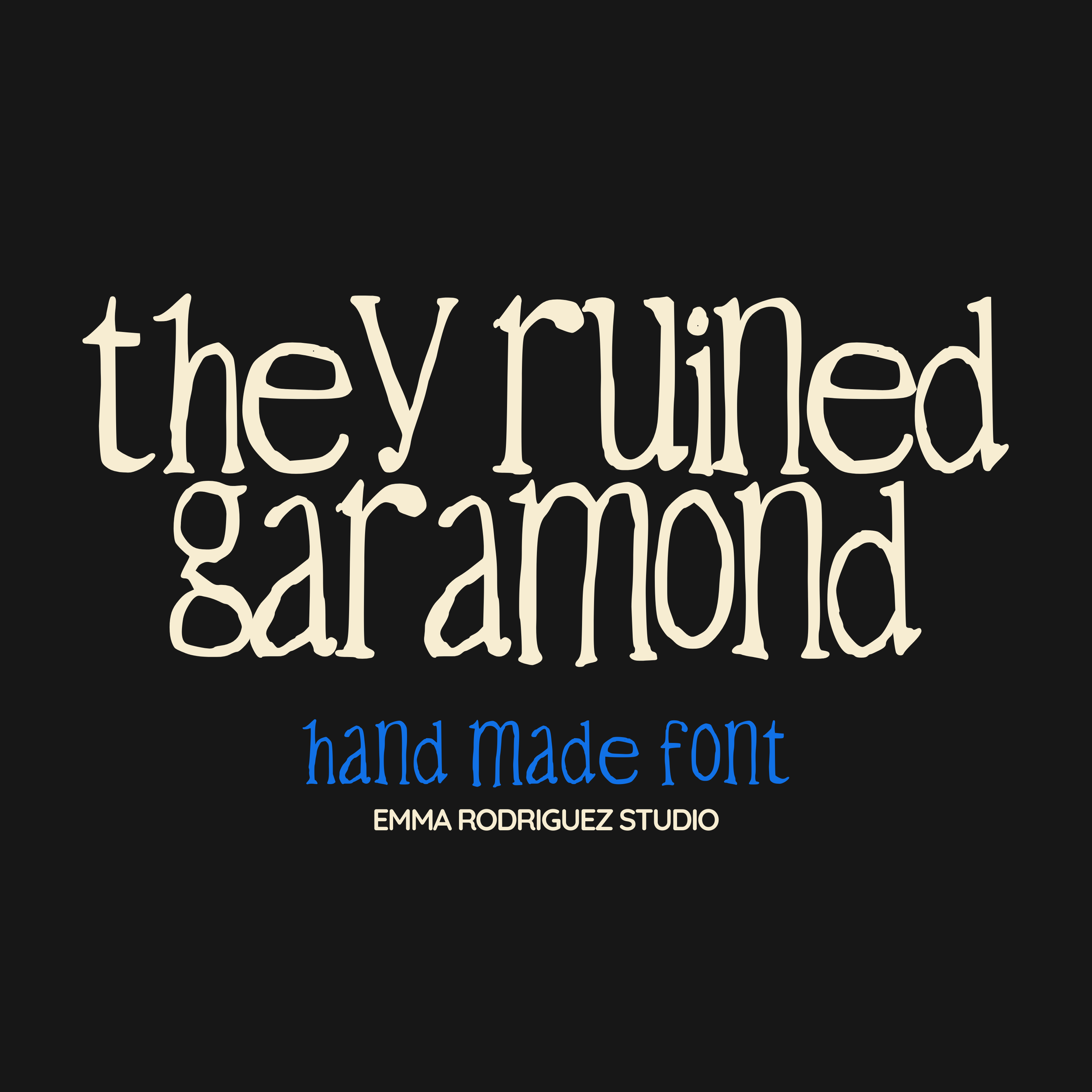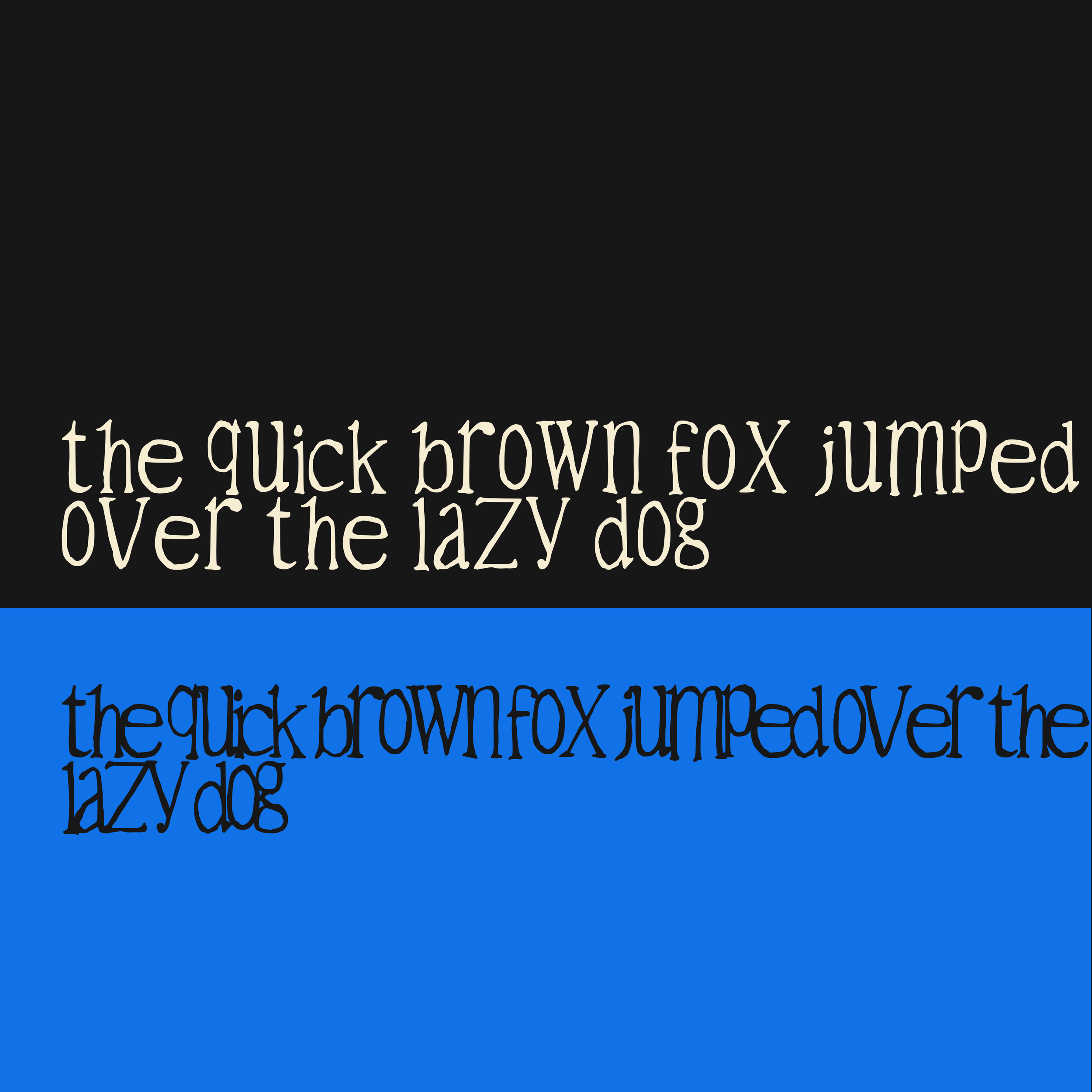
They Ruined Garamond Font - Scribbly Handwritten Fun Type
Meet 'They Ruined Garamond', a quirky handwritten twist on the classic Garamond style. This all-lowercase font takes the elegance of a timeless serif and wrecks it with messy strokes, uneven lines, and playful imperfections. The result is a chaotic, offbeat typeface that feels both familiar and completely ruined in the best way possible.
With its hand-drawn, scribbly character, They Ruined Garamond is perfect for projects that need personality without polish. Use it for bold branding, silly quotes, posters, zines, stickers, or digital planners that call for something delightfully wrong.
If you’ve ever looked at Garamond and thought “what if someone doodled all over it in the margins of a notebook and made it a pure mess”....this is that font.
• All lowercase letters
• Numbers & basic punctuation
Fonts by Emma Rodriguez Studio are made to have personality. Expect naive shapes, wonky details, playful imperfections and type that doesn’t take itself too seriously. They’re not designed for clean, minimal branding. They’re for bold, quirky, maximalist projects that need something a little stranger, sillier and more expressive.